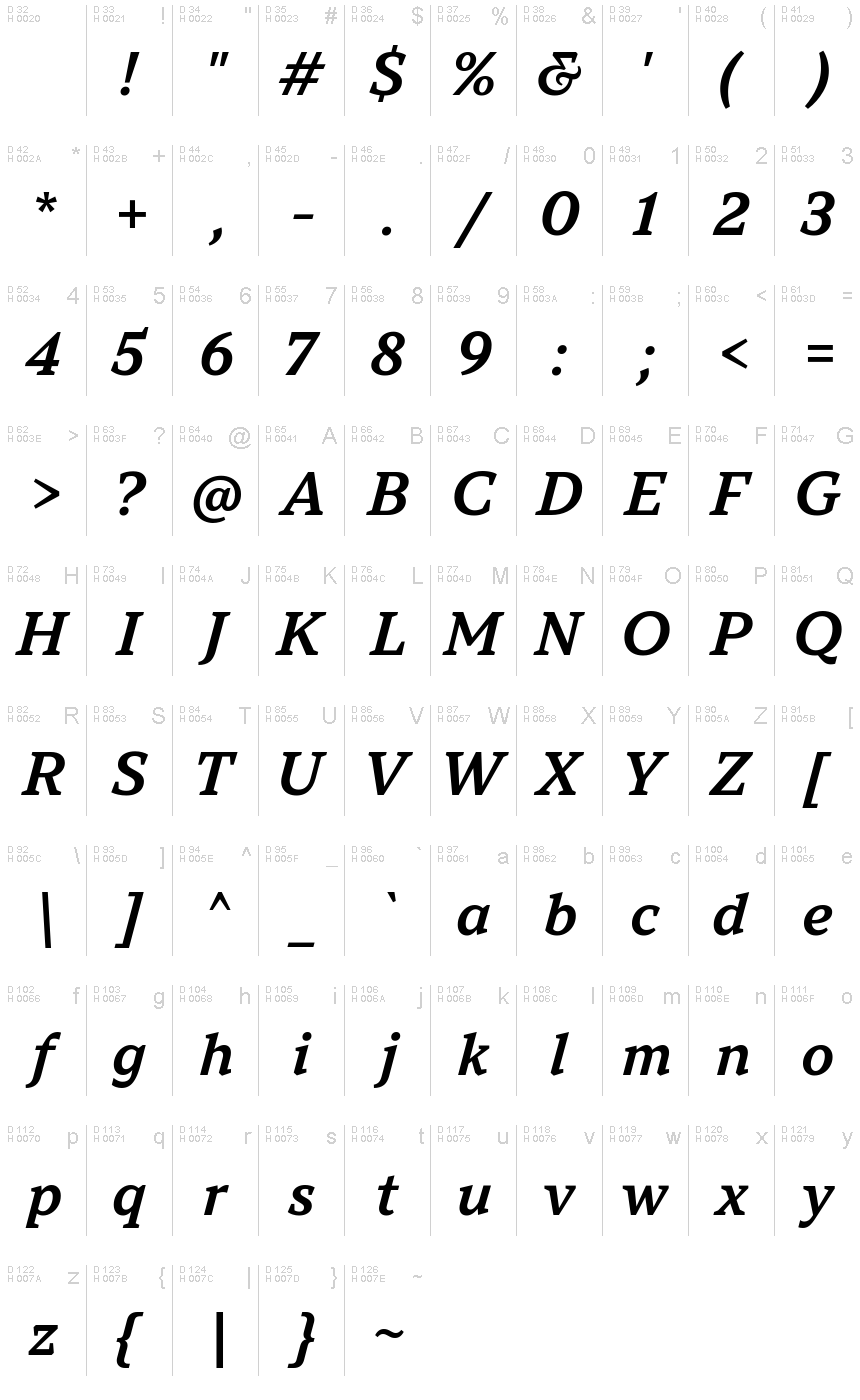
TT Norms Pro Serif Trl Db It
TT Norms Pro Serif Db It font, part of the TT Norms Pro Serif family by TypeType Foundry, exudes a refined elegance that seamlessly merges traditional serif characteristics with contemporary flair. Its distinctive design features a balanced and harmonious structure, highlighted by gracefully extended strokes that add sophistication to any text.
The font's aesthetic appeal lies in its ability to convey both warmth and professionalism, making it versatile across various applications. Ideal for editorial layouts, branding projects, and upscale marketing materials, TT Norms Pro Serif captures attention while maintaining readability. Whether used in print or digital media, this font asserts a confident presence that works beautifully in headlines or body text alike. Embrace the charm of TT Norms Pro Serif for your next creative endeavor and elevate your design aesthetics effortlessly.